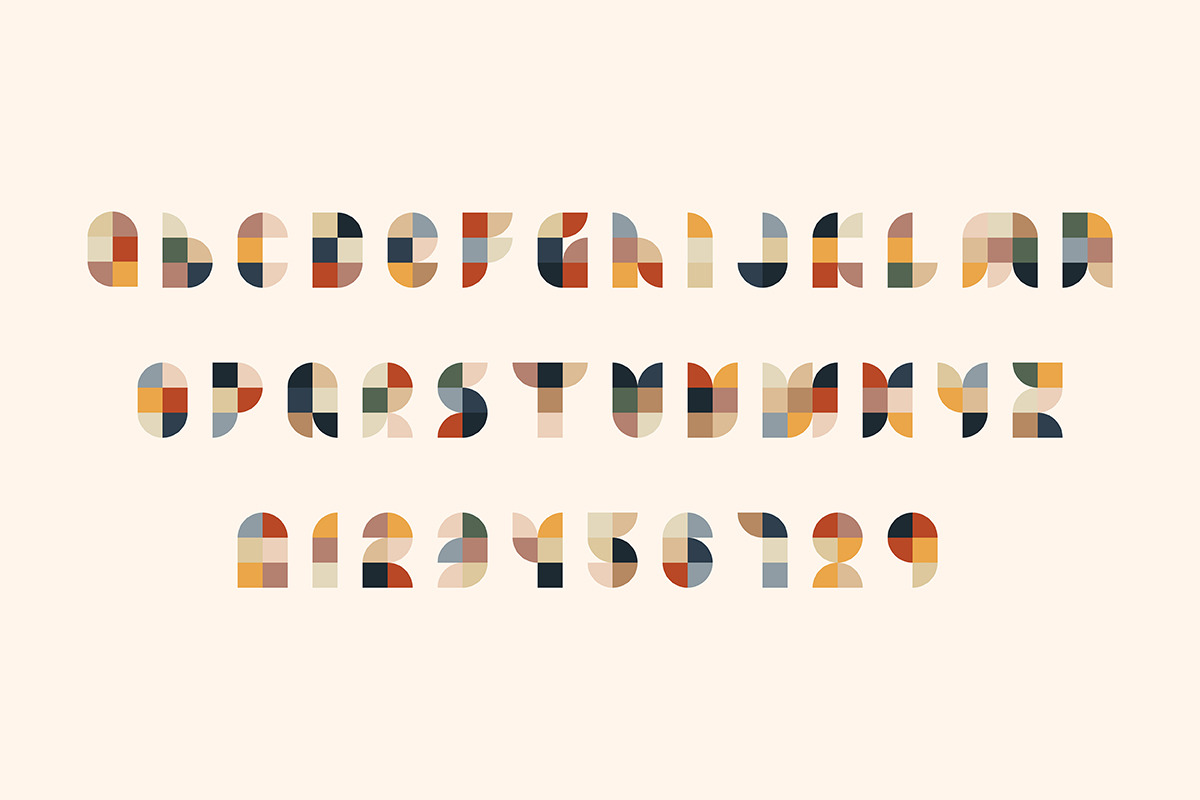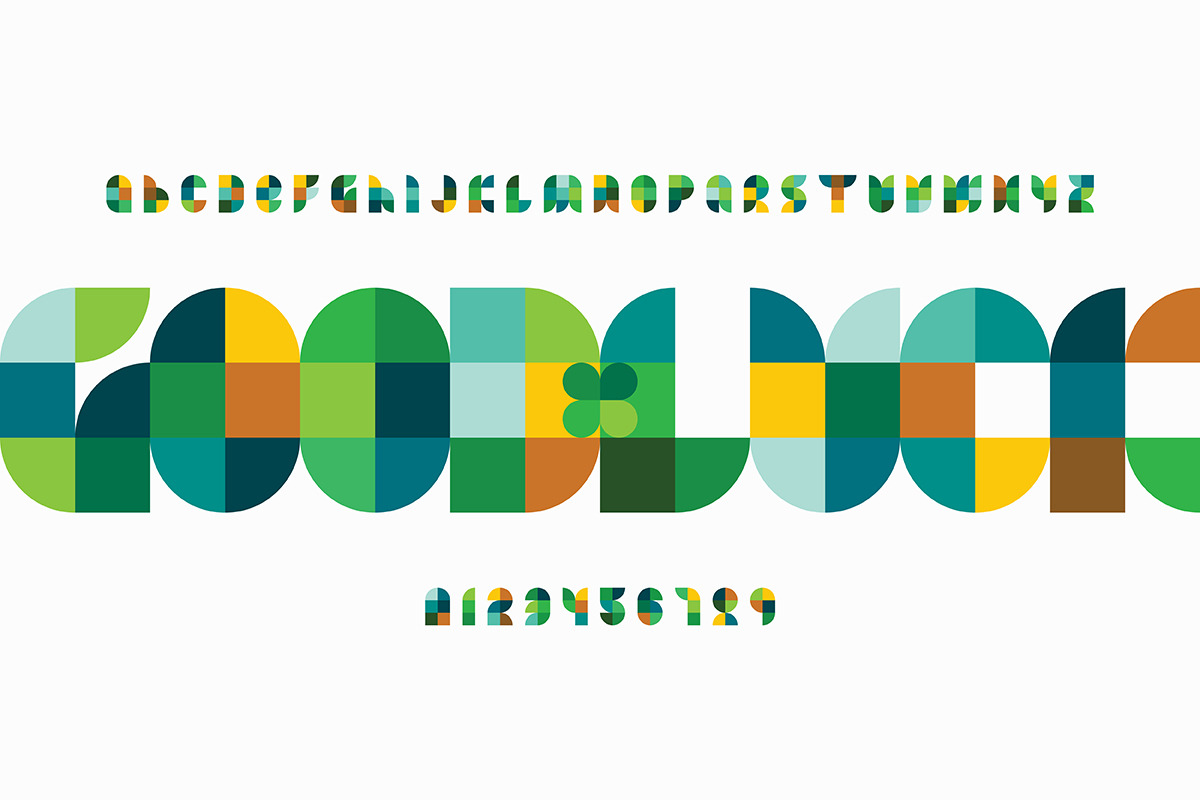
Colorful geometric vector font
Colorful geometric vector font in two color variants. Vector illustration of abstract letters and numbers made of different simple geometric shapes for your creative design projects (poster, banner, greeting card, t-shirt design…)